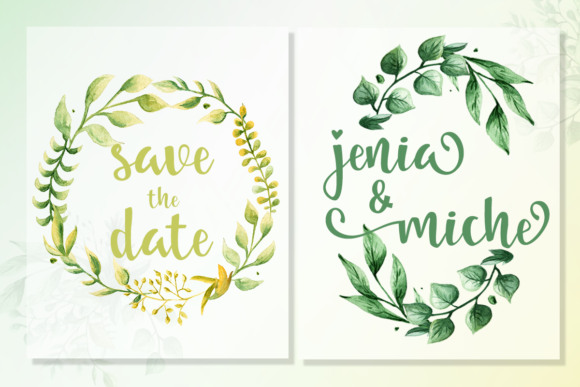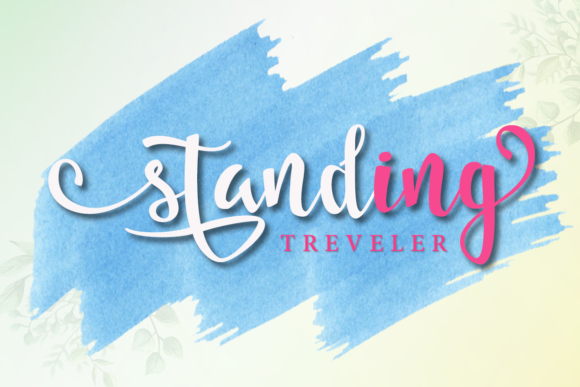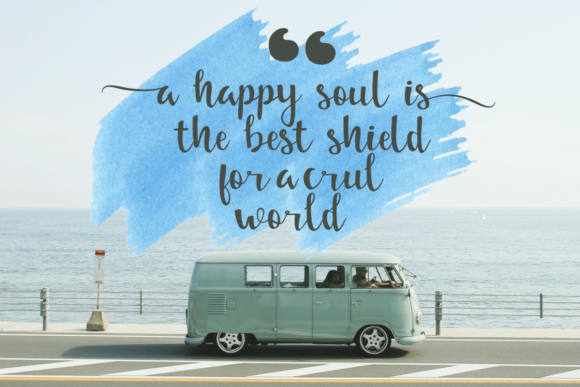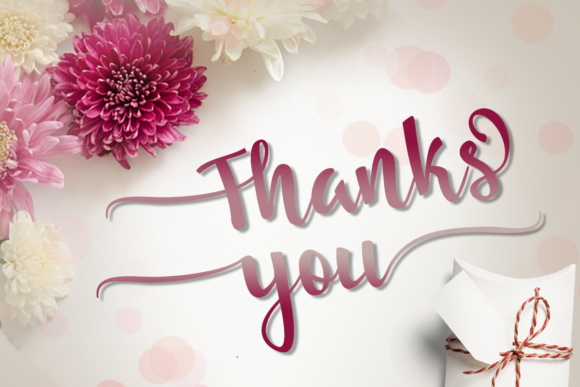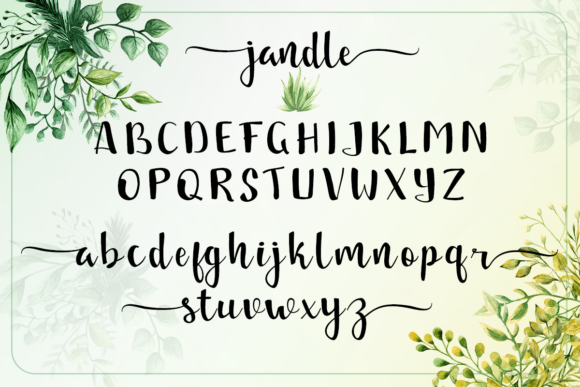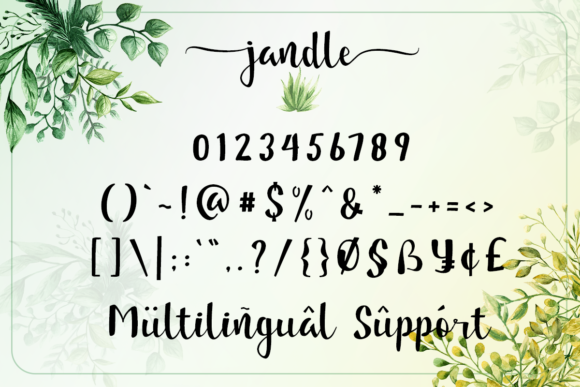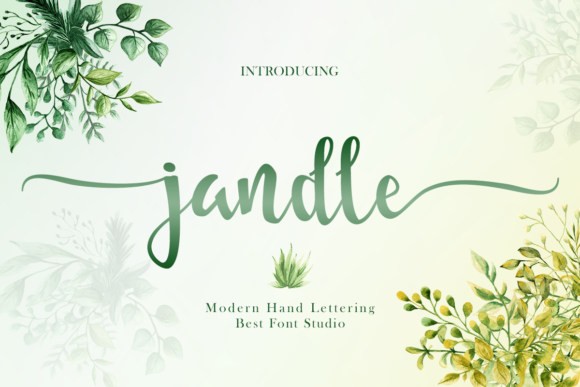
HomeScript FontsJandle Font Script Fonts Jandle Font FacebookXPinterestWhatsApp Jandle Font Poster 2 Jandle Font Poster 3 Jandle Font Poster 4 Jandle Font Poster 5 Jandle Font Poster 6 Jandle Font Poster 7 Jandle Font Poster 8 About Jandle Font Jandle is a sweet and friendly handwritten font, full of charm! Get inspired by its authentic style. DOWNLOAD ON CREATIVE FABRICAThis font is sold and delivered by Creative Fabrica. Font Canyon may earn a commission if you buy through this link. People also explored Christmas Tree Font Fleurons Three Saturday Font Ktochi Font Formentera Crashboat Beach | Beer Mockup So Simple Font Feathertop Font Hello Font Mr. Buttery Font 427 0 TagsJandle Font Previous articleBeyond Magical FontNext articleBarbara Blast Font LEAVE A REPLY Cancel reply Comment: Please enter your comment! Name:* Please enter your name here Email:* You have entered an incorrect email address! Please enter your email address here Website: Save my name, email, and website in this browser for the next time I comment. Personal Use Free Maxwell Personal Use Free Read more about this font Pan Pizza Personal Use Free Read more about this font Indonesia Dermawan Personal Use Free Read more about this font Monofonto Personal Use Free Read more about this font BLOG How to Cut Any Font on Cricut: Convert a Font to SVG (Free) Turn any font into a clean SVG so it cuts crisp on Cricut - a quick 3-step workflow using a free font-to-SVG tool. Modern Sans-Serif Fonts That Brands Love in 2025 To increase your work productivity, choose the most readable fonts. How to Install and Use Fonts on Windows, macOS, and Web Projects